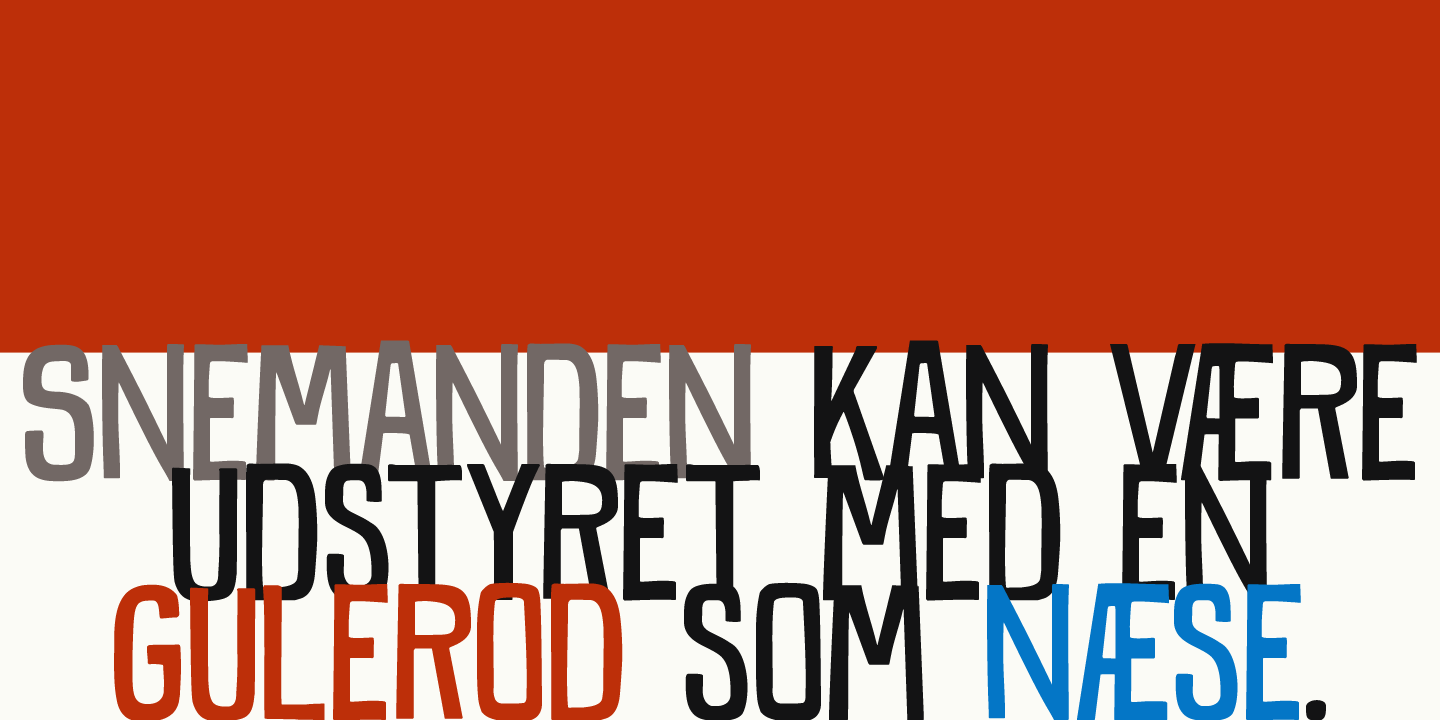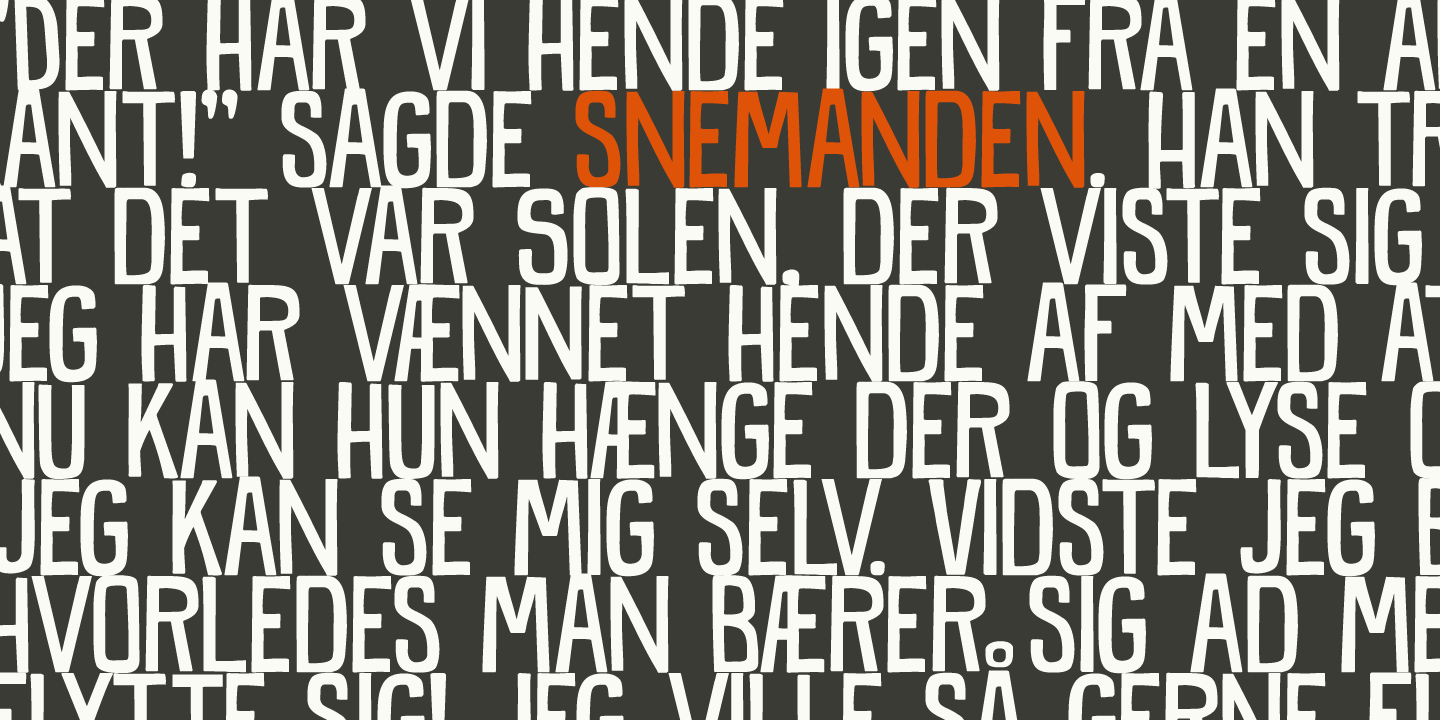
Snemand
Font Family by Hanoded
Buy NowSnemand, in Danish, means Snowman. Quite appropriate for the last month of the year! The font is all caps, but upper and lower case letters can be interchanged and it includes alternates for all lower case letters. Snemand is a very legible font and has that great ?unevenish? look - making it a great typeface for packaging and books. Enjoy the snow - while it lasts - and go out. You might even build a Snemand!